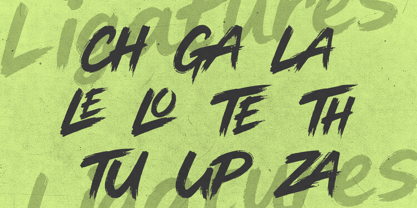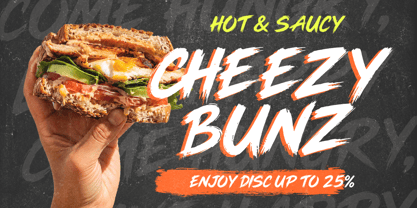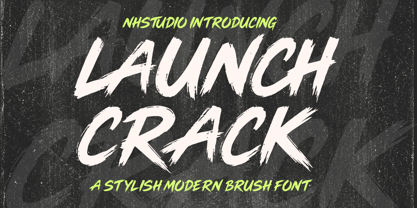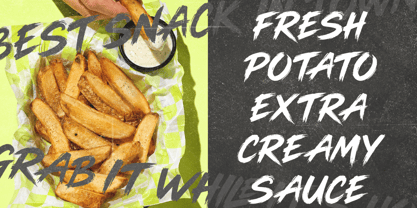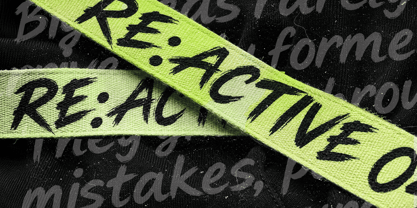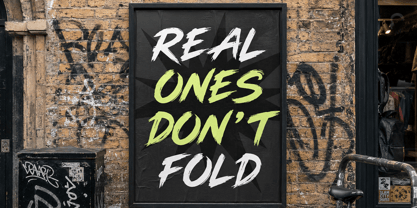
Launch Crack
by NH TypeStudio
The Launch Crack Font Family was designed by Hadi Nasrul and published by NH TypeStudio. Launch Crack contains 1 styles. More about this family
Dive into the audacious universe of Launch Crack, a brazen brush typeface that dares to break the mold. Overflowing with unique characters, this font delivers a powerful impact, combining intriguing textures, rough edges, and a bold hint of urban style. Possessing a vigorous dynamism, Launch Crack serves as an exceptional choice for dynamic sports branding, urban fashion styling, high-energy sports visuals, and bold, headline-stealing captions. Each word etched in the Launch Crack font is indeed a declaration that demands attention.
Designers: Hadi Nasrul
Foundry: NH TypeStudio